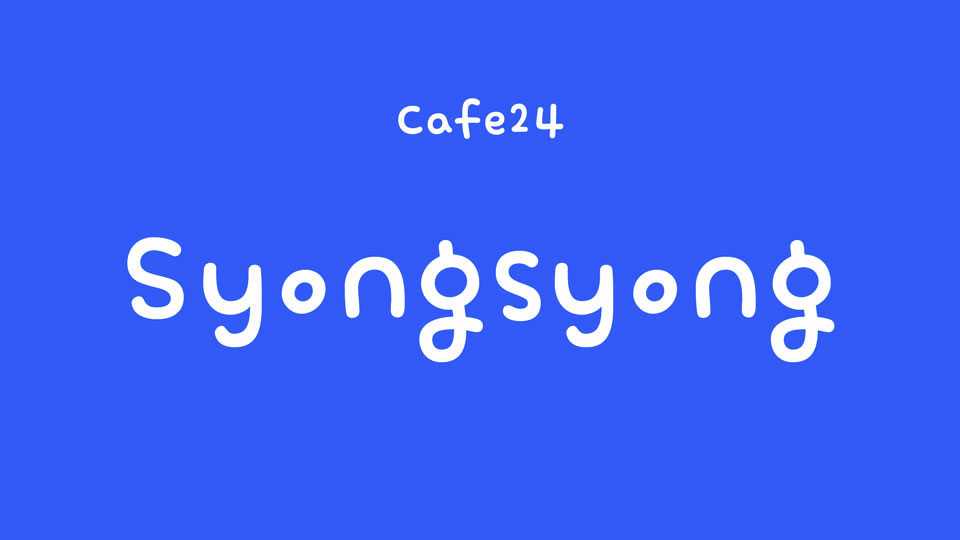
Download Cafe24 Syongsyong font, a cheerful and dynamic hand drawn typeface with a bouncy, energetic personality, evoking a sense of playfulness and movement.
Designer: Cafe24